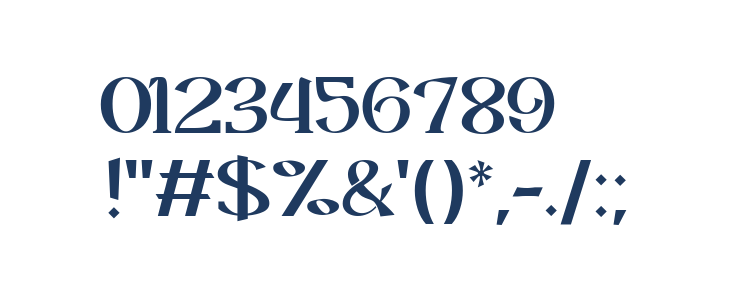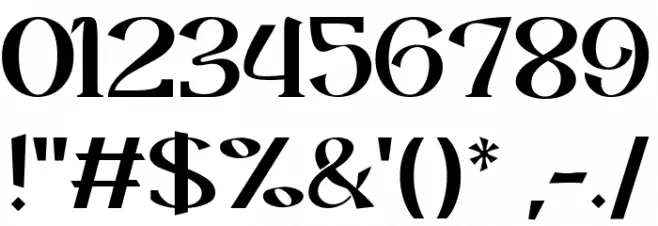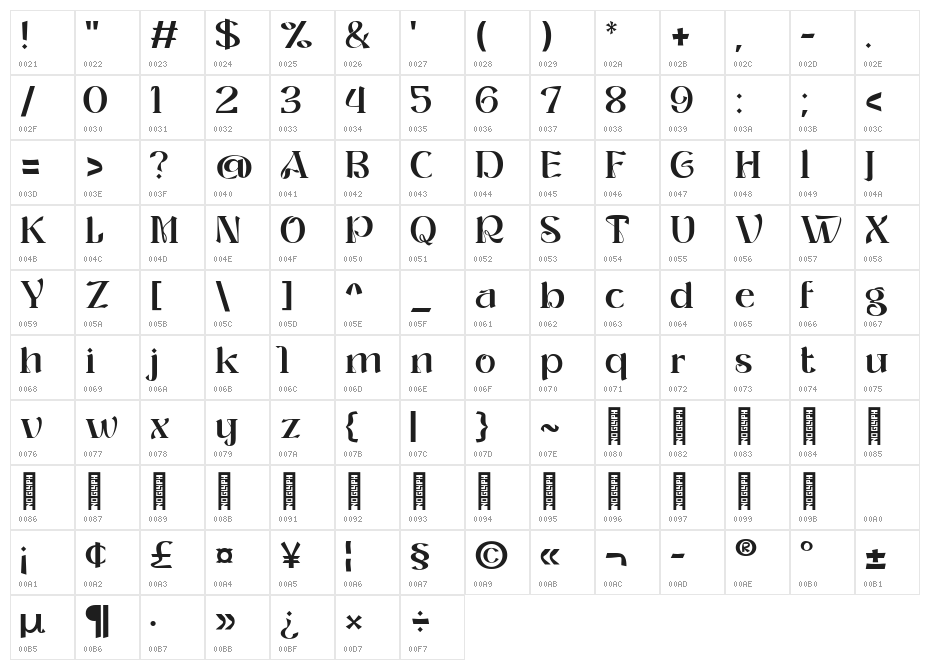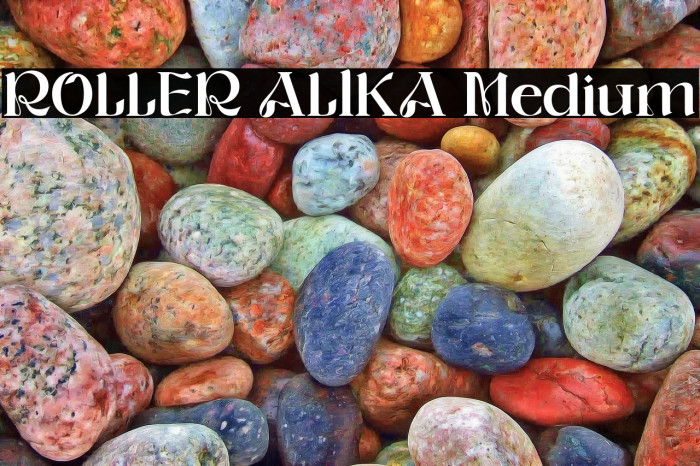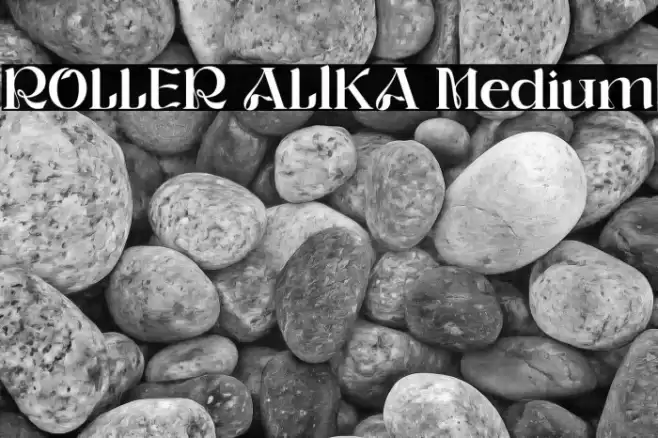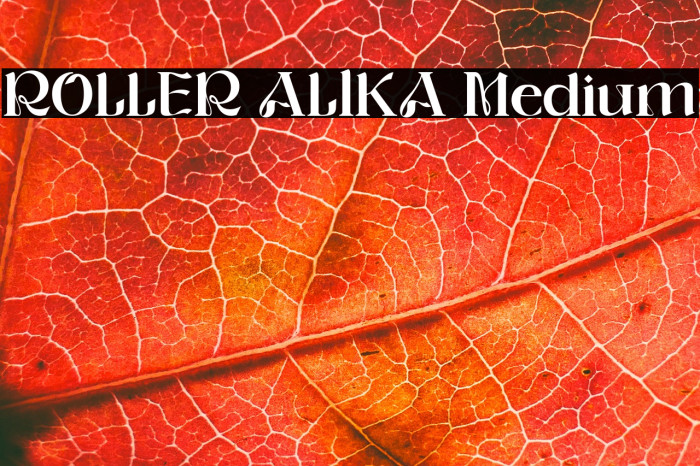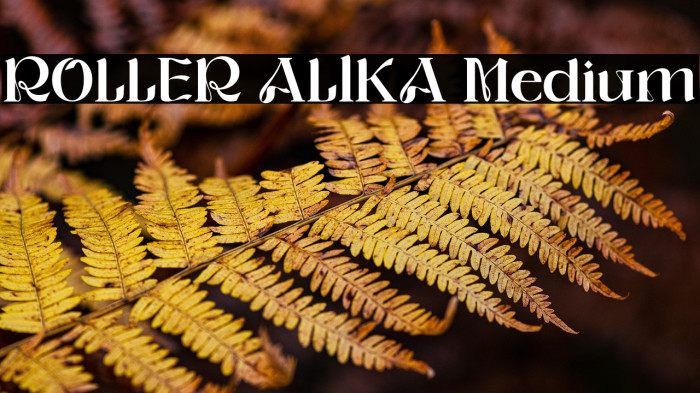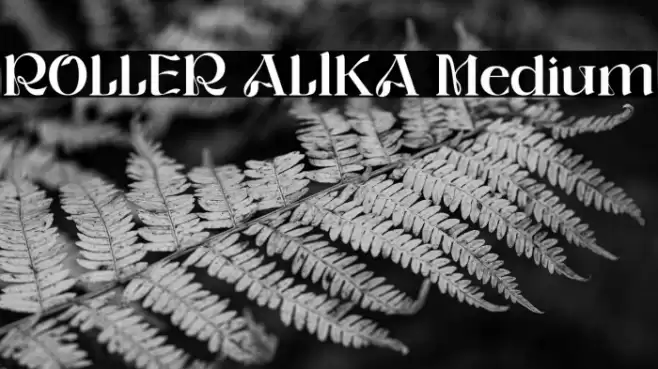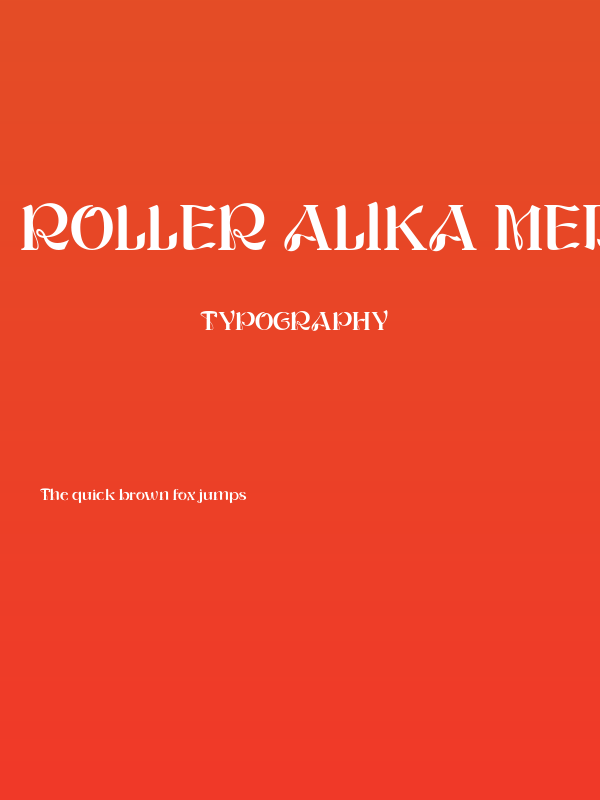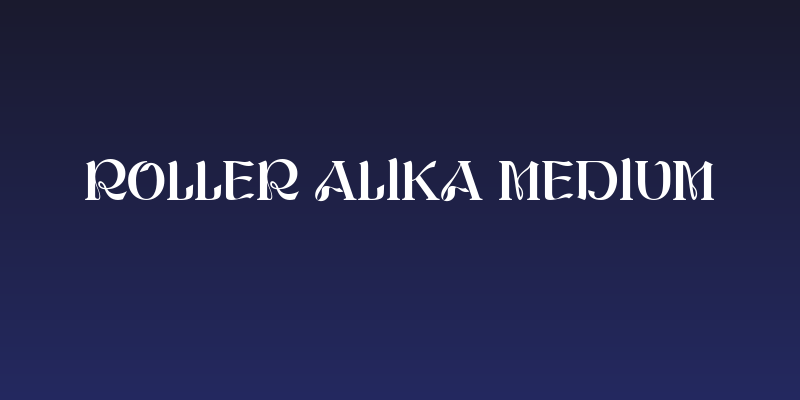
ROLLER ALIKA Medium Font
ROLLER ALIKA Medium Description
This font exhibits a unique blend of modern and vintage styles, characterized by its bold and artistic flair. The uppercase letters feature sharp, angular serifs and a distinct curvature that adds a touch of elegance and sophistication. The lowercase letters maintain a consistent style, with smooth curves and a slightly condensed appearance, enhancing readability while retaining a decorative essence. The numerals are bold and well-defined, ensuring clarity and impact. Special characters are crafted with the same attention to detail, providing a cohesive look across all glyphs. The overall design is both striking and versatile, making it suitable for a variety of creative applications.
| Overall Style | Modern Vintage |
| Proposed Projects | Ideal for branding, poster design, book covers, and any project requiring a bold, artistic touch. |